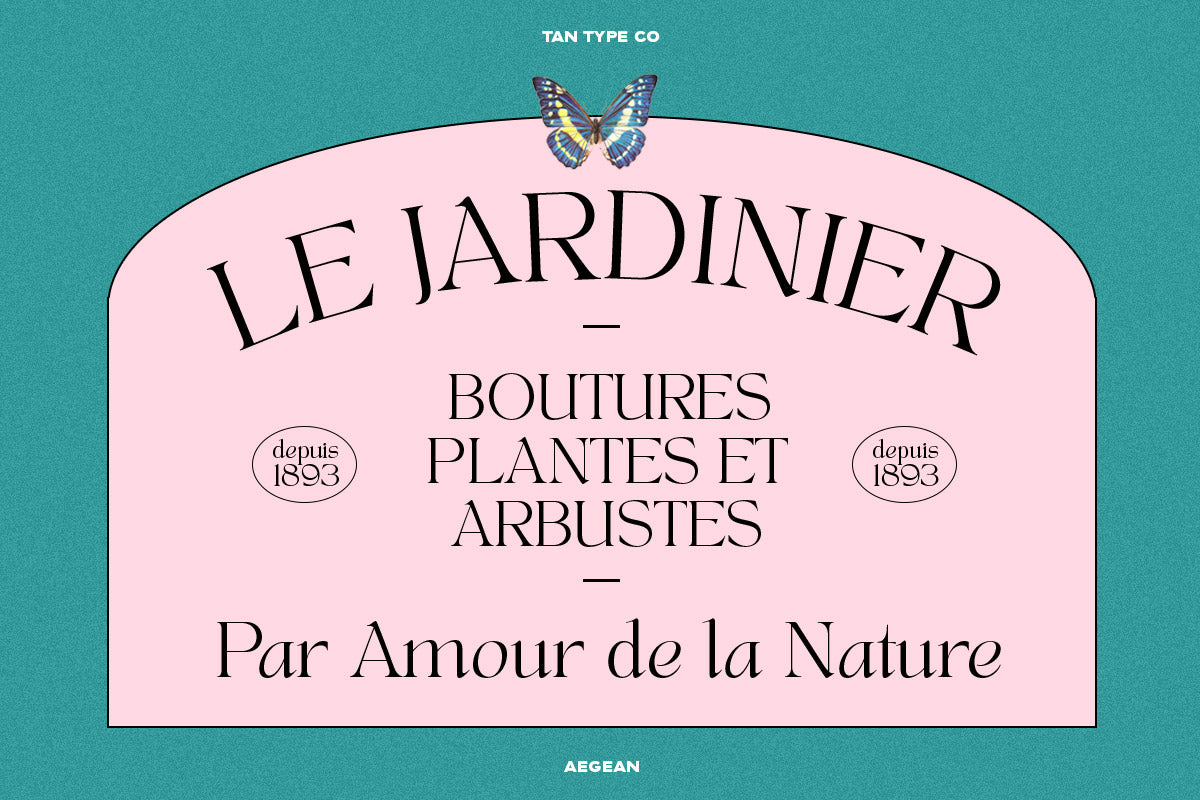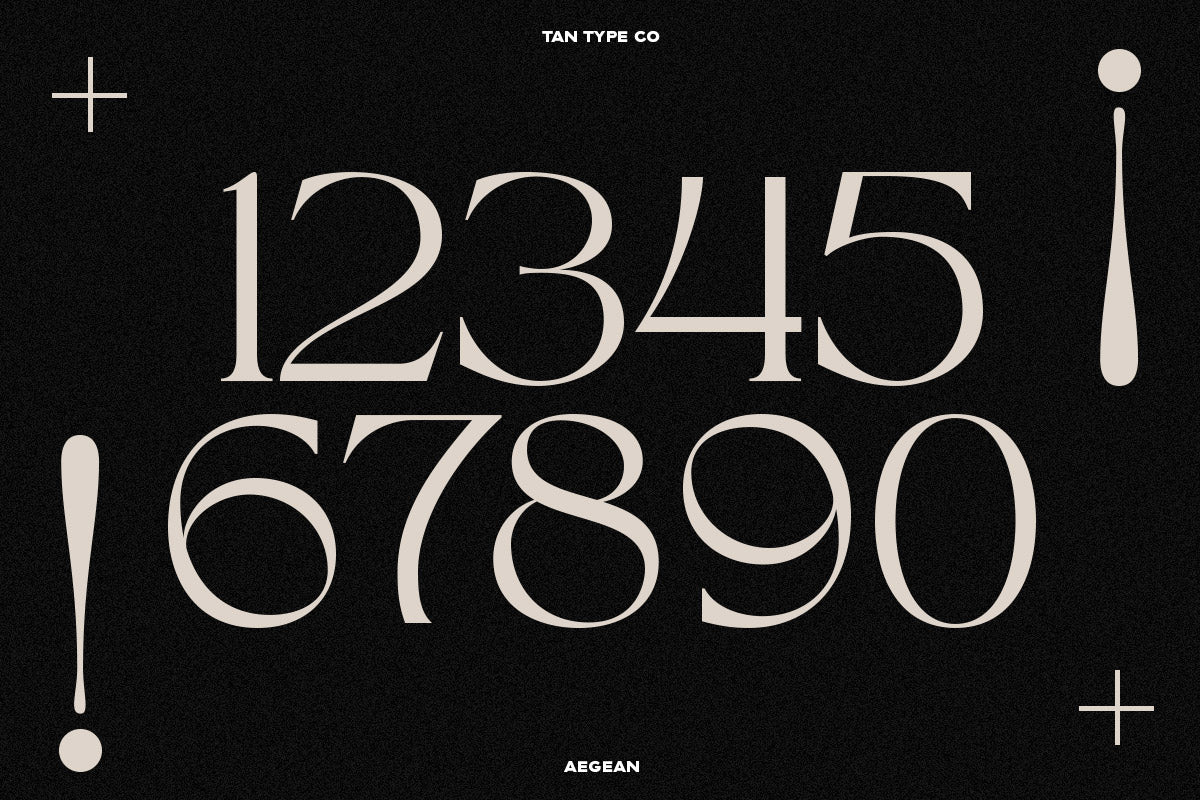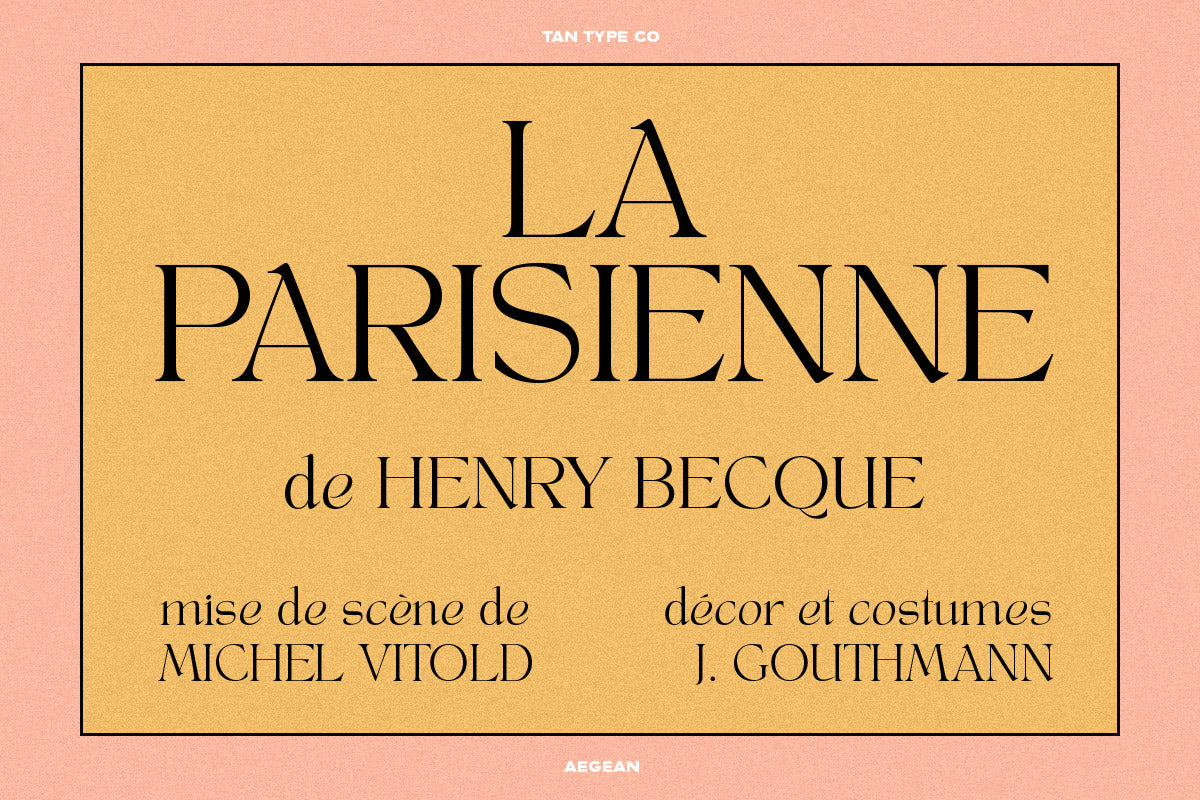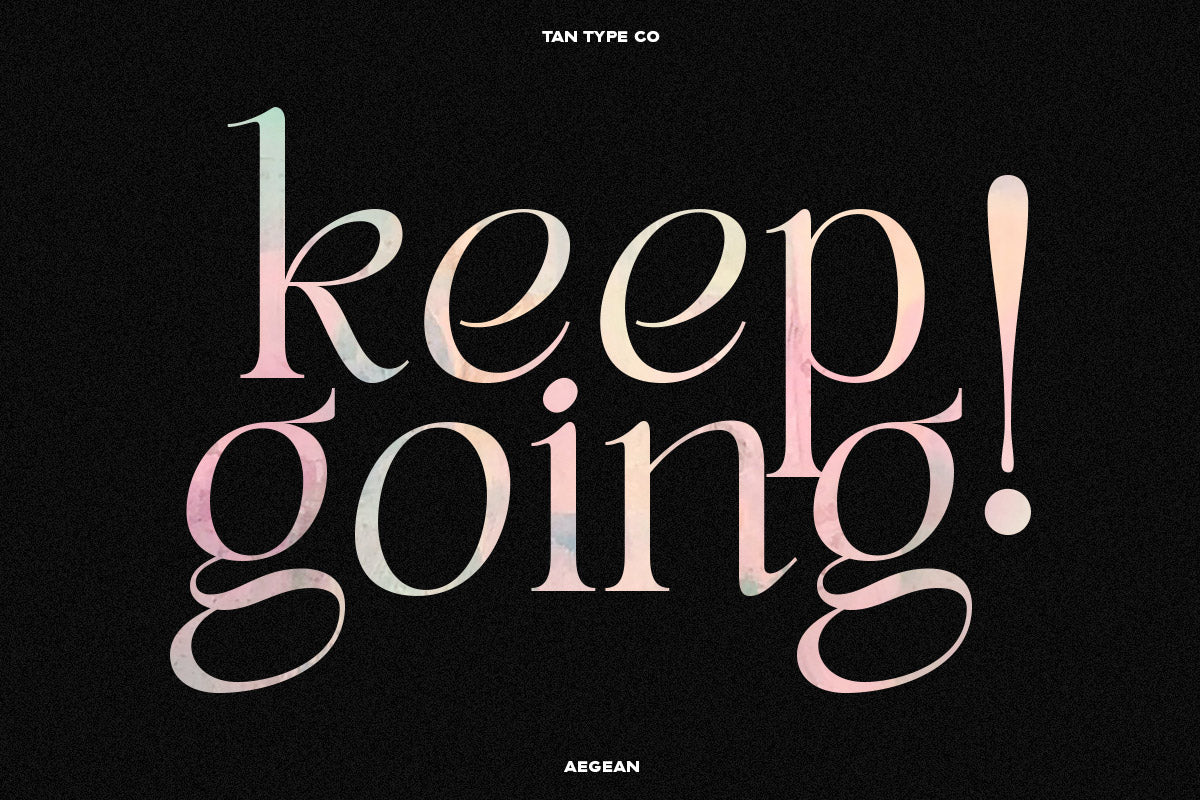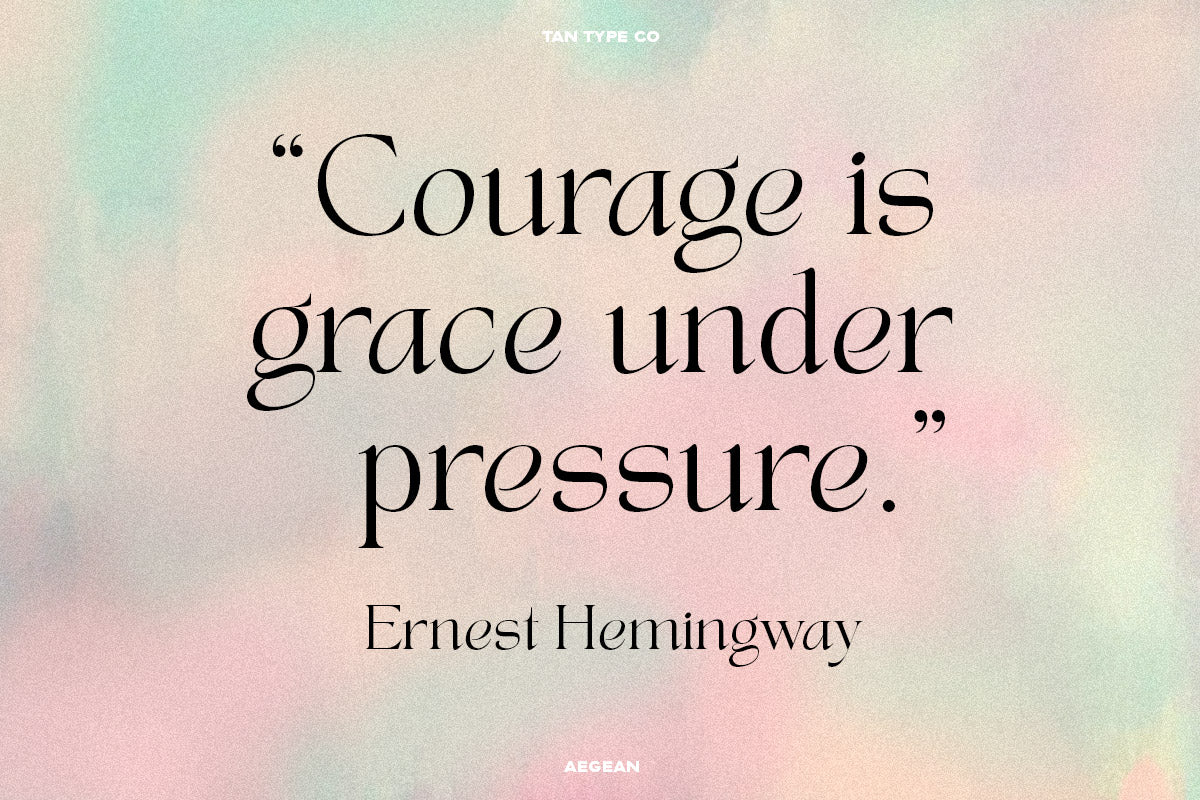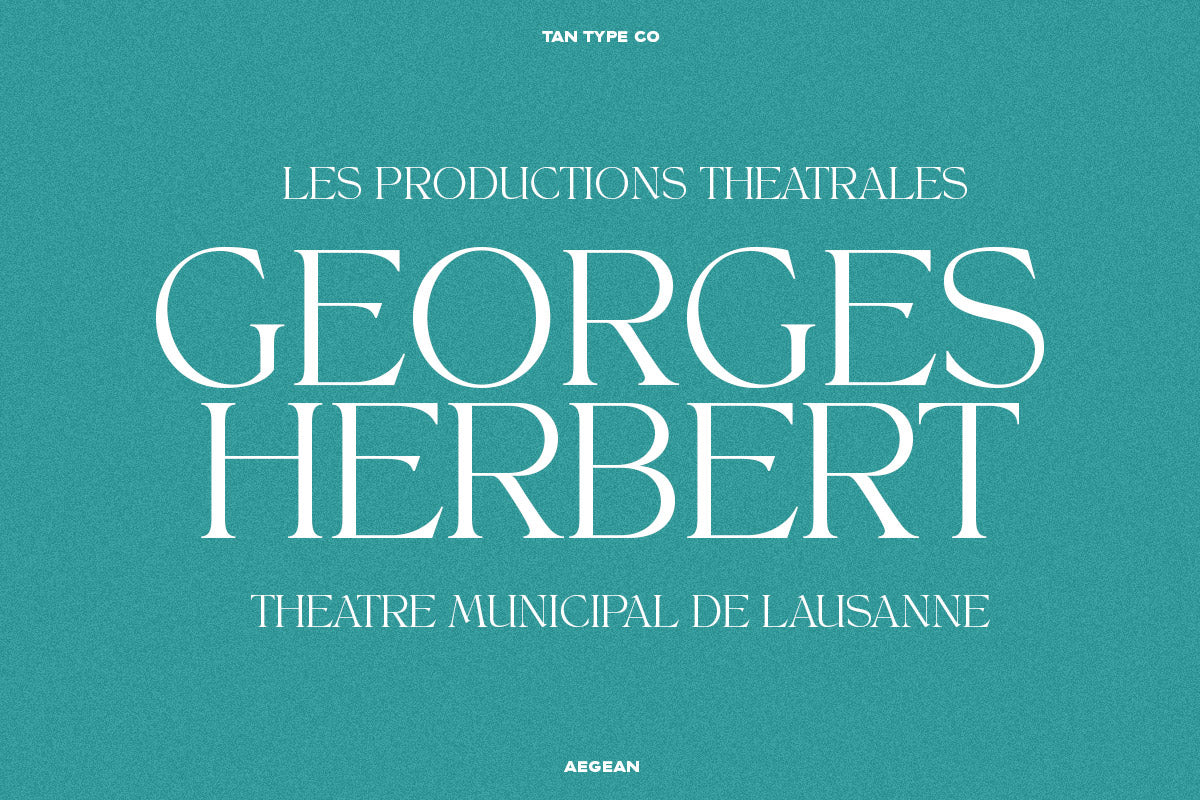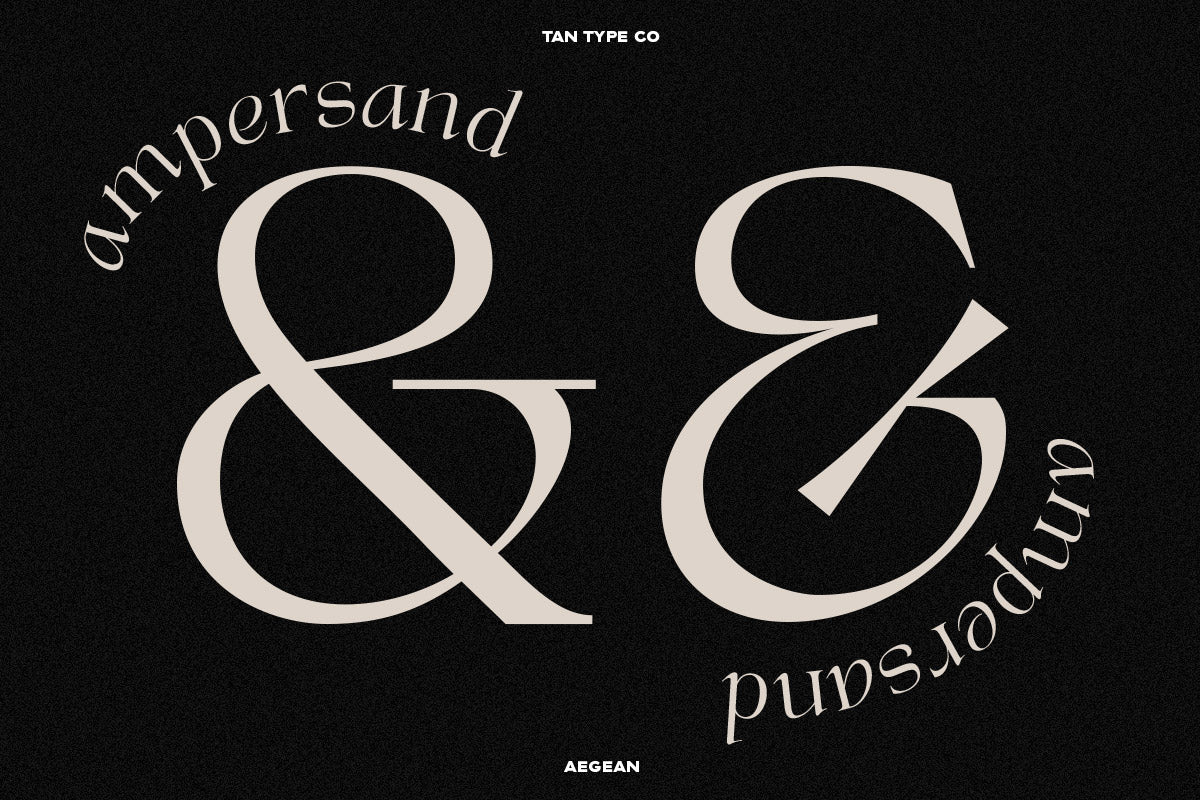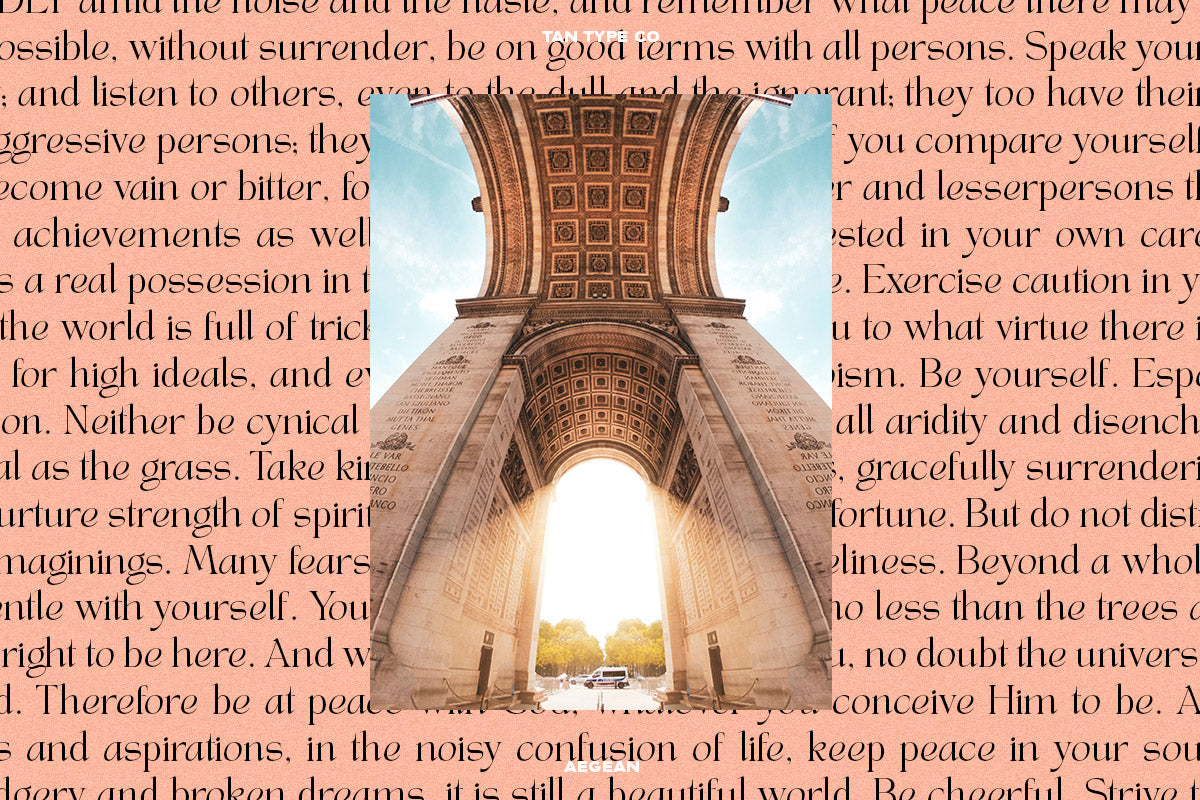
AEGEAN is a graceful display serif font with a strong sense of style and fluidity. Featuring soft curves, high contrast strokes, and artistic terminals, this typeface is both elegant and expressive.